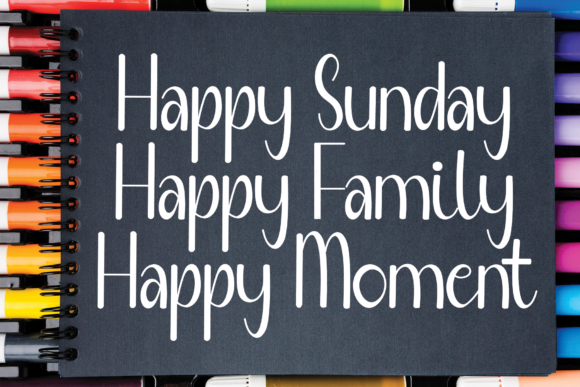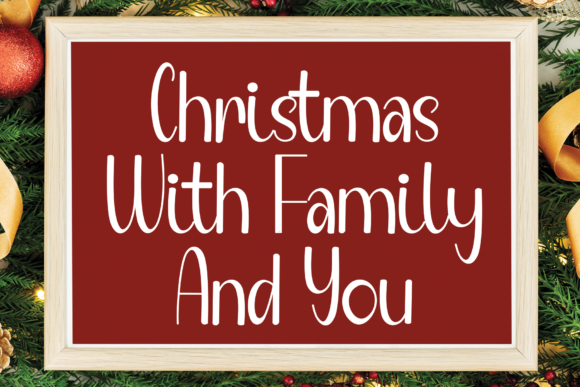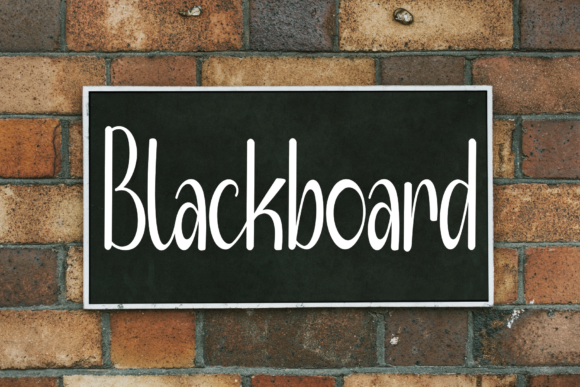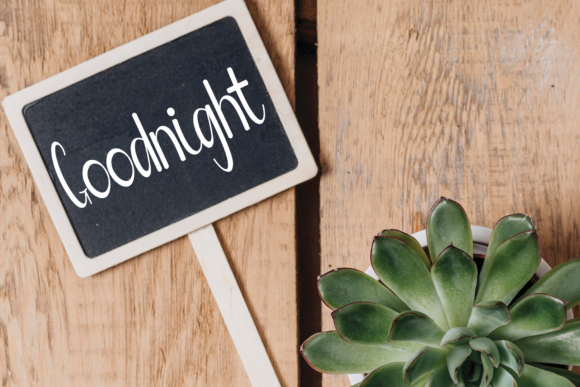
About Designer Vintage Font
Designer Vintage, a clean, casual, and friendly handwritten font, is a carefully crafted typeface designed to deliver the expected results with precision and style. This versatile font is well-suited for a wide range of applications, allowing you to write various kinds of products based on their unique needs.
The clean and casual aesthetic of Designer Vintage makes it a versatile choice for different design projects. Whether you’re working on marketing materials, product packaging, branding, or any other creative endeavor, this font adds a touch of friendliness and approachability to your text.
Crafted with great care, Designer Vintage ensures a polished and professional appearance, making it suitable for a variety of design contexts. Its clean lines and friendly vibe make it an excellent choice for creating visually appealing content that resonates with modern design sensibilities.
The handwritten style of Designer Vintage contributes to its versatility, allowing you to use it for diverse products and projects. The font adapts effortlessly to your creative needs, providing a reliable option for expressing your message in a clean, casual, and friendly manner.
In summary, Designer Vintage is more than just a font; it’s a design tool crafted with precision and care. Its clean, casual, and friendly handwritten style makes it suitable for a variety of applications, offering a versatile option for your creative projects. Use Designer Vintage to add a touch of approachability and professionalism to your designs, ensuring they meet the desired expectations with ease.